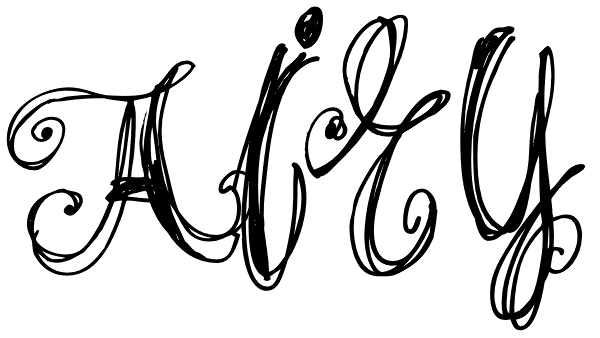
Airy
Airy is in fact a very light-minded summer font without any serious design concept. It is a collection of hand-drawn letters that with the help of OpenType features allow you to get a lace texture with mutable structure. Together with the font you...
Airy